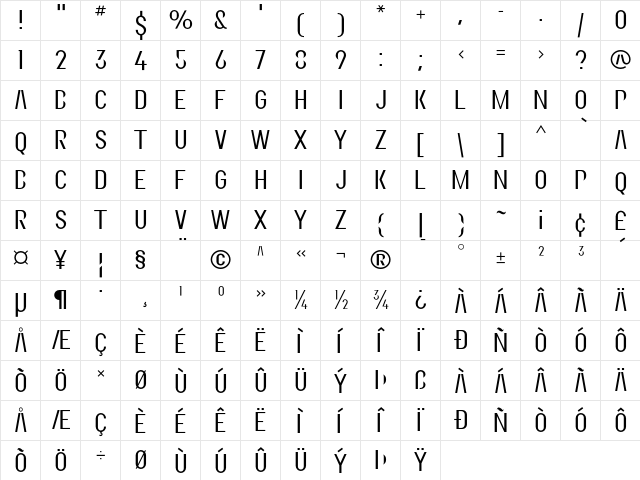
Metropolitan Regular
Design Context for Metropolitan Typeface
Metropolitan is a composed and adaptable typeface that performs quietly and consistently across a wide range of design contexts.